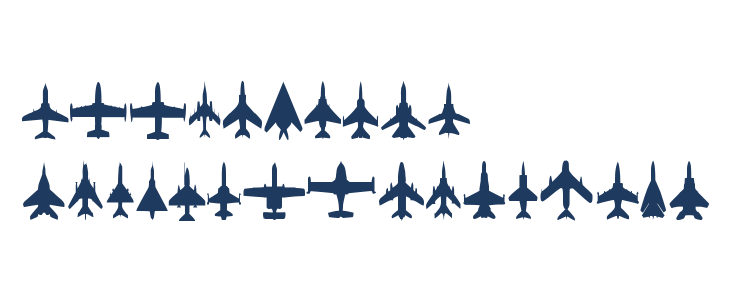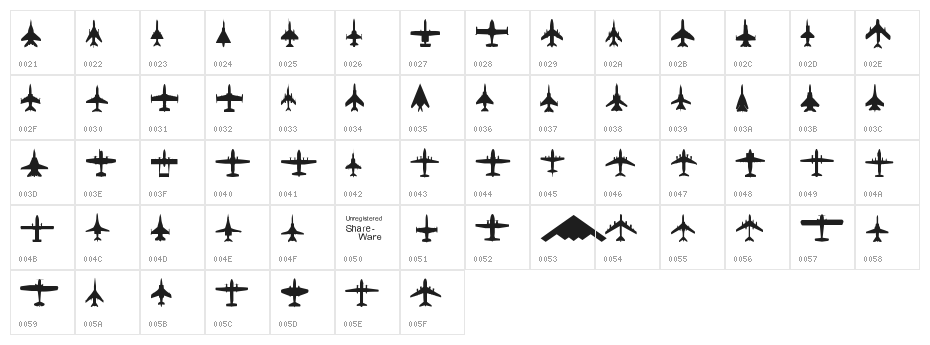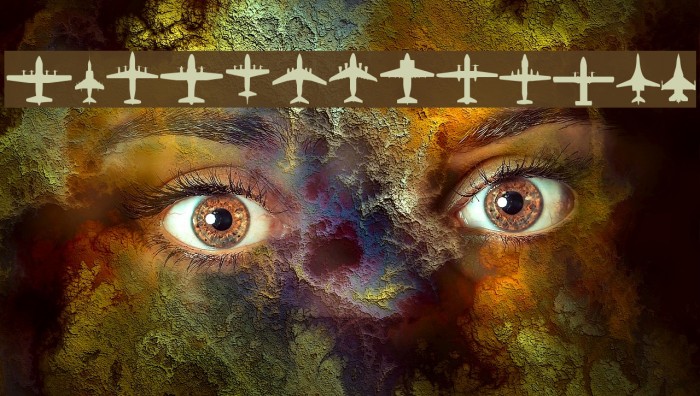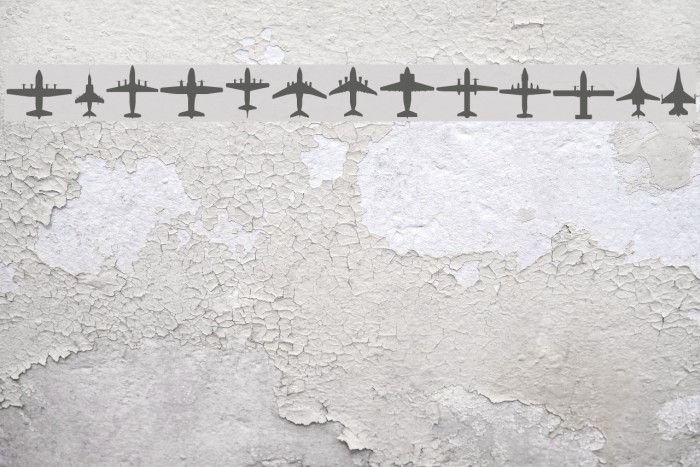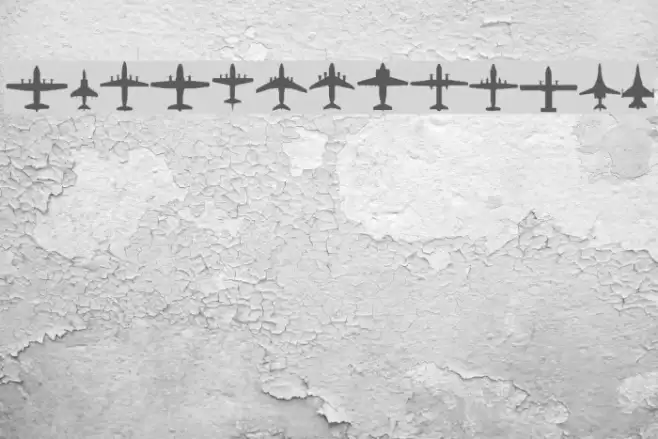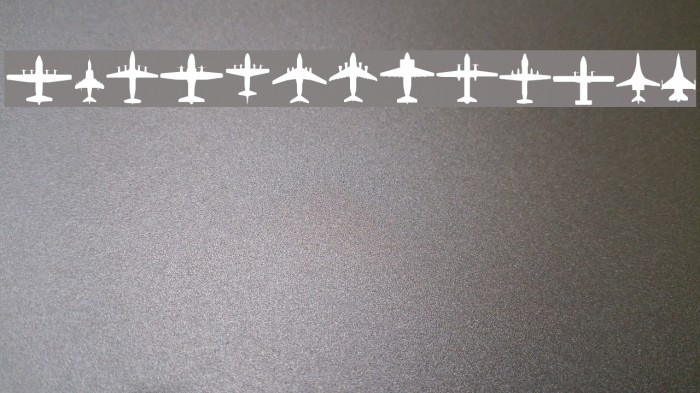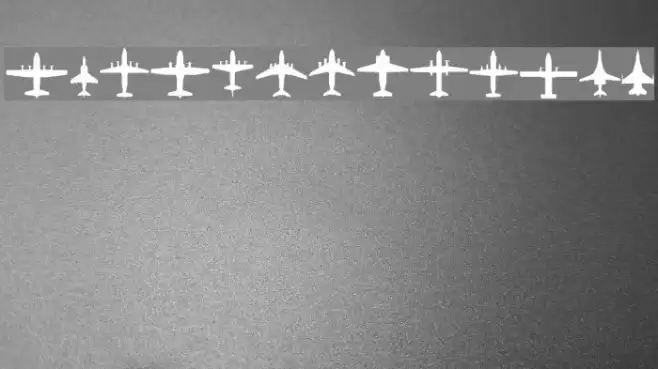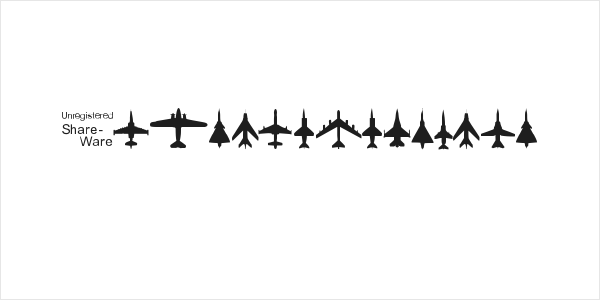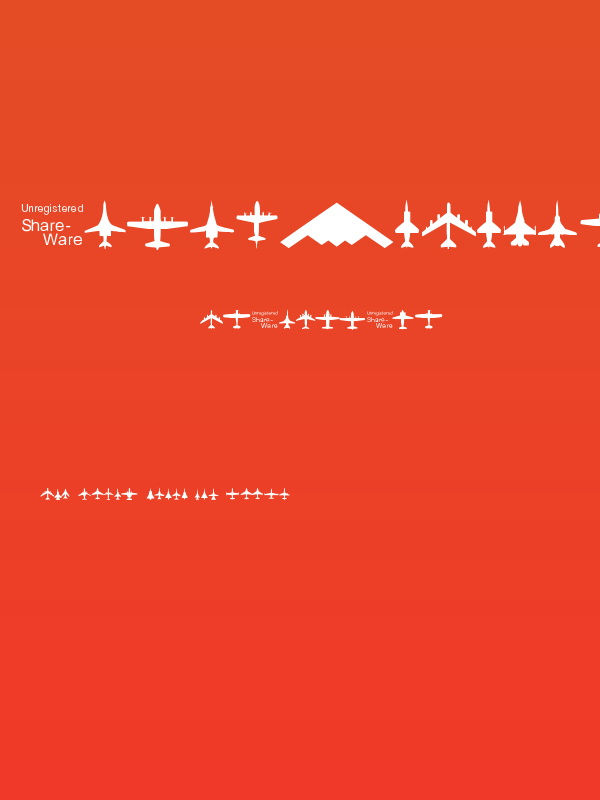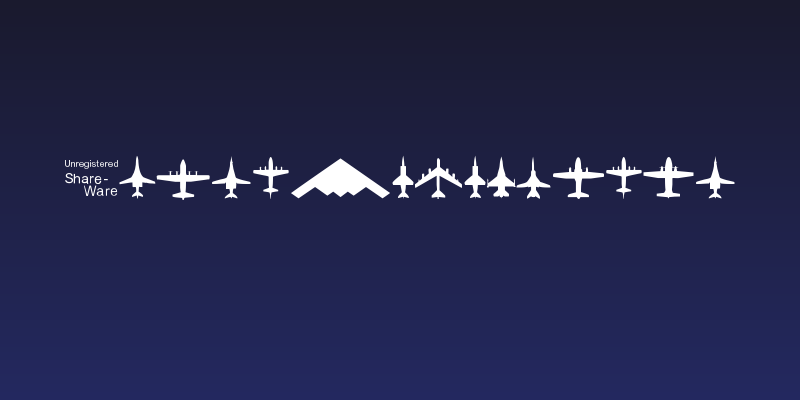
Planes-T-Modern Font
Planes-T-Modern Description
A decorative display font featuring silhouettes of various airplane types, each character represented by a different aircraft viewed from above, with solid black fills and no interior detail.
| Overall Style | Decorative, Thematic |
| Use Case | Logos, Headlines, Themed graphics |
| Proposed Projects | Aviation-themed posters, educational materials, event flyers, novelty t-shirts, childrenΓ’β¬β’s books, and branding for aviation museums. |